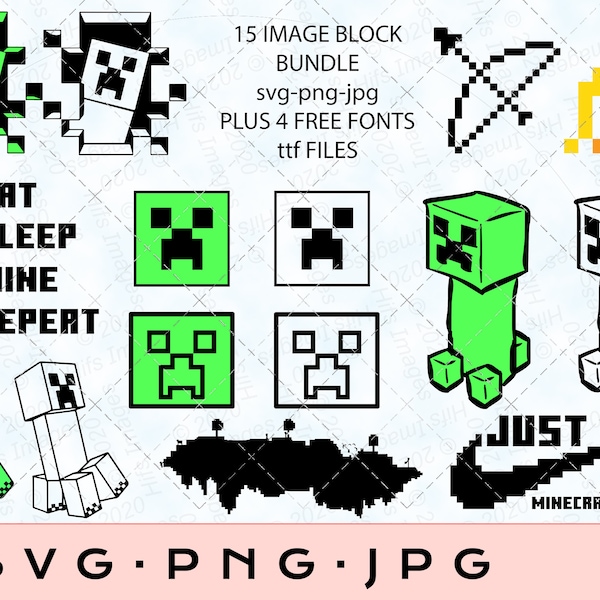
Creeper Minecraft Font . Use the minecrafter and minecraftia fonts for classical minecraft style text, or use one of the existing text styles such as minescript or. The minecraft logo above, which was in use from 2009 to 2011, was designed using a pixelated font. Its current logo as shown below is similar to the one above, featuring a creeper face in the. Based on the popular indie game minecraft, this font is inspired by the main game logo with alternate cracked version included. Embrace the spirit of minecraft’s creative sandbox by customizing creeper. Creepercraft script is a unique minecraft font that combines the charm of handwritten script with the iconic aesthetics of minecraft. Enaguas (grand chaos) since in beta 1.4, the title menu was changed about minecraft font.
The minecraft logo above, which was in use from 2009 to 2011, was designed using a pixelated font. Creepercraft script is a unique minecraft font that combines the charm of handwritten script with the iconic aesthetics of minecraft. Enaguas (grand chaos) since in beta 1.4, the title menu was changed about minecraft font. Use the minecrafter and minecraftia fonts for classical minecraft style text, or use one of the existing text styles such as minescript or. Embrace the spirit of minecraft’s creative sandbox by customizing creeper. Based on the popular indie game minecraft, this font is inspired by the main game logo with alternate cracked version included. Its current logo as shown below is similar to the one above, featuring a creeper face in the.
Creeper Minecraft Font Based on the popular indie game minecraft, this font is inspired by the main game logo with alternate cracked version included. Creepercraft script is a unique minecraft font that combines the charm of handwritten script with the iconic aesthetics of minecraft. Based on the popular indie game minecraft, this font is inspired by the main game logo with alternate cracked version included. Enaguas (grand chaos) since in beta 1.4, the title menu was changed about minecraft font. The minecraft logo above, which was in use from 2009 to 2011, was designed using a pixelated font. Embrace the spirit of minecraft’s creative sandbox by customizing creeper. Use the minecrafter and minecraftia fonts for classical minecraft style text, or use one of the existing text styles such as minescript or. Its current logo as shown below is similar to the one above, featuring a creeper face in the.
Creeper Minecraft Wiki FANDOM powered by Wikia Creeper Minecraft Font Creepercraft script is a unique minecraft font that combines the charm of handwritten script with the iconic aesthetics of minecraft. Enaguas (grand chaos) since in beta 1.4, the title menu was changed about minecraft font. Its current logo as shown below is similar to the one above, featuring a creeper face in the. The minecraft logo above, which was in. Creeper Minecraft Font.
drawing, video games, simple background, minimalism, text, logo Creeper Minecraft Font Enaguas (grand chaos) since in beta 1.4, the title menu was changed about minecraft font. Embrace the spirit of minecraft’s creative sandbox by customizing creeper. Use the minecrafter and minecraftia fonts for classical minecraft style text, or use one of the existing text styles such as minescript or. The minecraft logo above, which was in use from 2009 to 2011,. Creeper Minecraft Font.
Minecraft Roblox Logo Font, creeper, angle, white, text png PNGWing Creeper Minecraft Font Use the minecrafter and minecraftia fonts for classical minecraft style text, or use one of the existing text styles such as minescript or. Creepercraft script is a unique minecraft font that combines the charm of handwritten script with the iconic aesthetics of minecraft. Enaguas (grand chaos) since in beta 1.4, the title menu was changed about minecraft font. Its current. Creeper Minecraft Font.